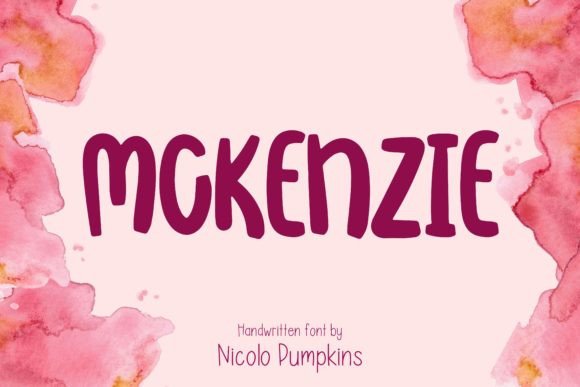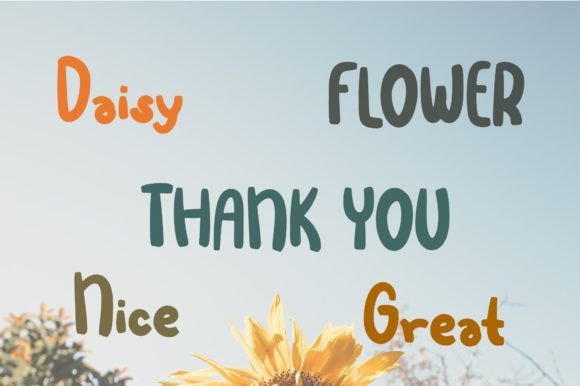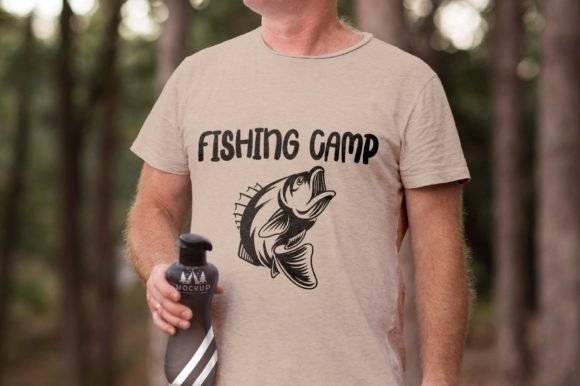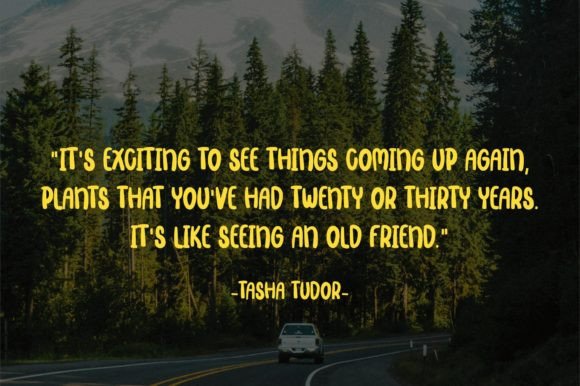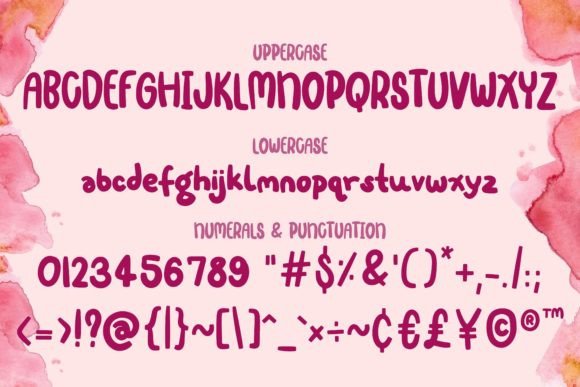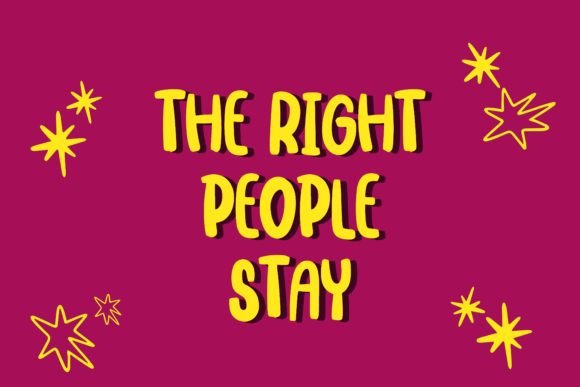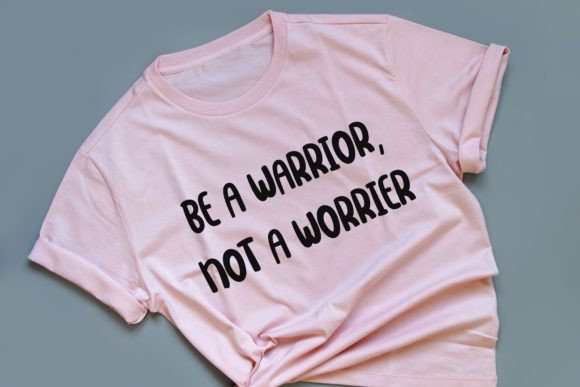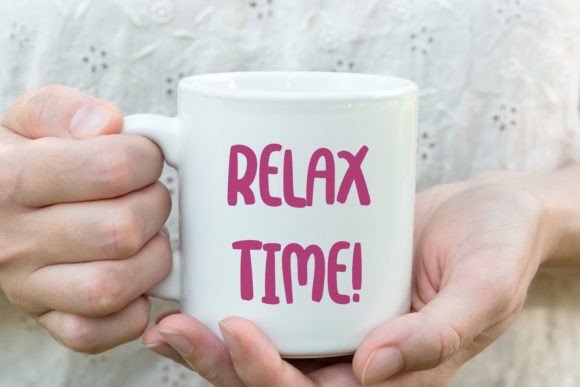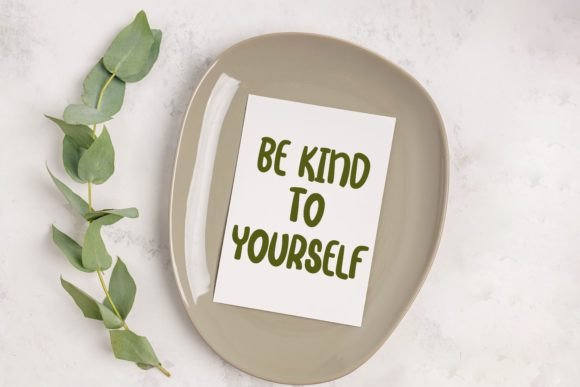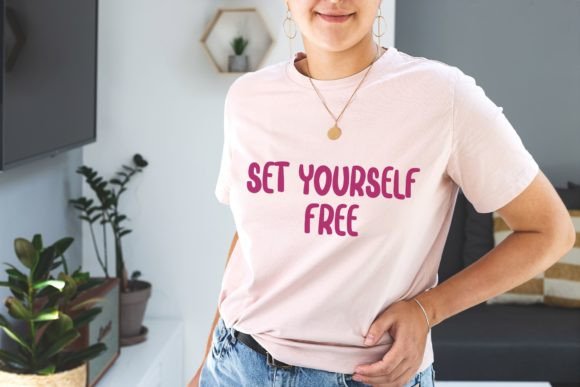
Mckenzie Font
About Mckenzie Font
Mckenzie, a modern and friendly handwritten font, emerges as a versatile and stylish choice for a variety of creative projects. Whether you’re crafting quotes, logos, or any lettering product, Mckenzie adds a contemporary and approachable touch to your designs.
The modern and friendly features of Mckenzie make it suitable for a range of design applications, bringing a sense of style and approachability to your text. The handwritten style adds a personal and authentic feel to your projects, enhancing their visual appeal.
Mckenzie is designed to make your creative ideas stand out with its clean and modern aesthetic. Its versatility allows it to seamlessly adapt to different contexts, making it a valuable asset for expressing creativity in various design projects.
Incorporate Mckenzie into your lettering projects and witness how it elevates your creative ideas. Let its modern and friendly character be the key element that makes your designs stand out and captures the attention of your audience. Whether you’re designing for print or digital media, Mckenzie is a font that brings a contemporary and friendly energy to various design applications.